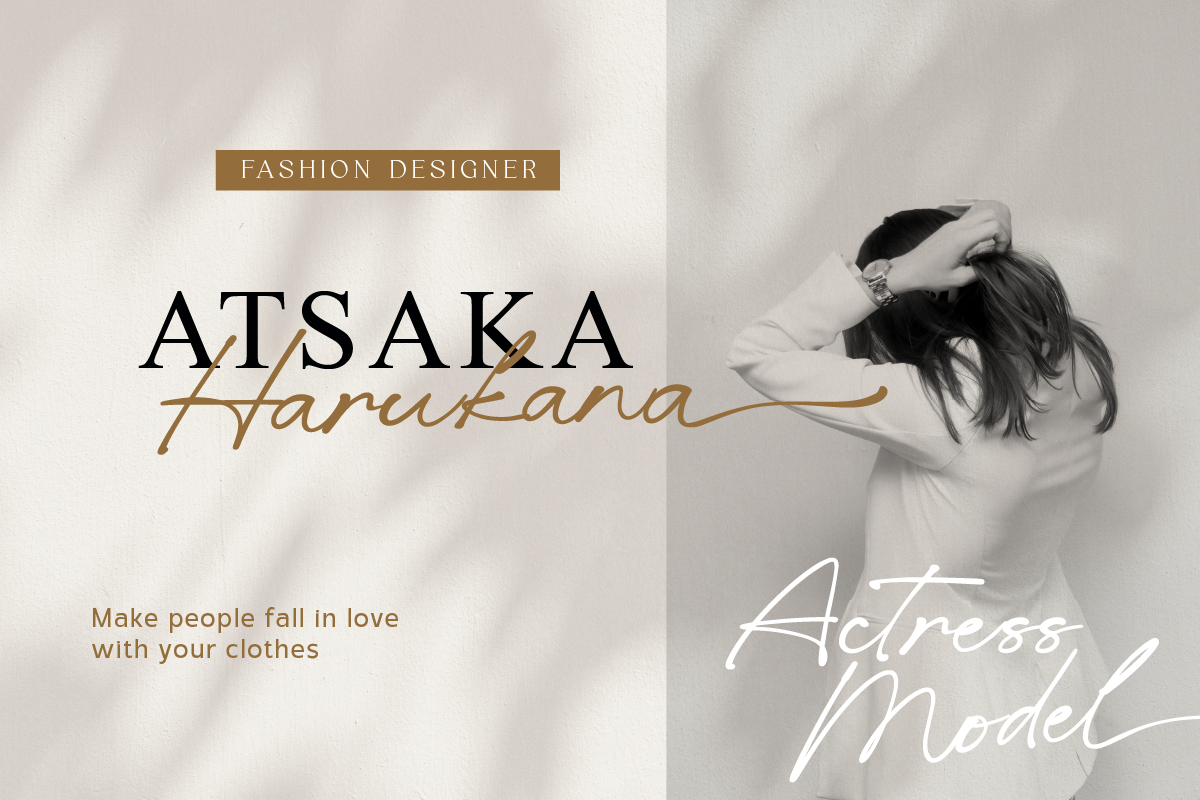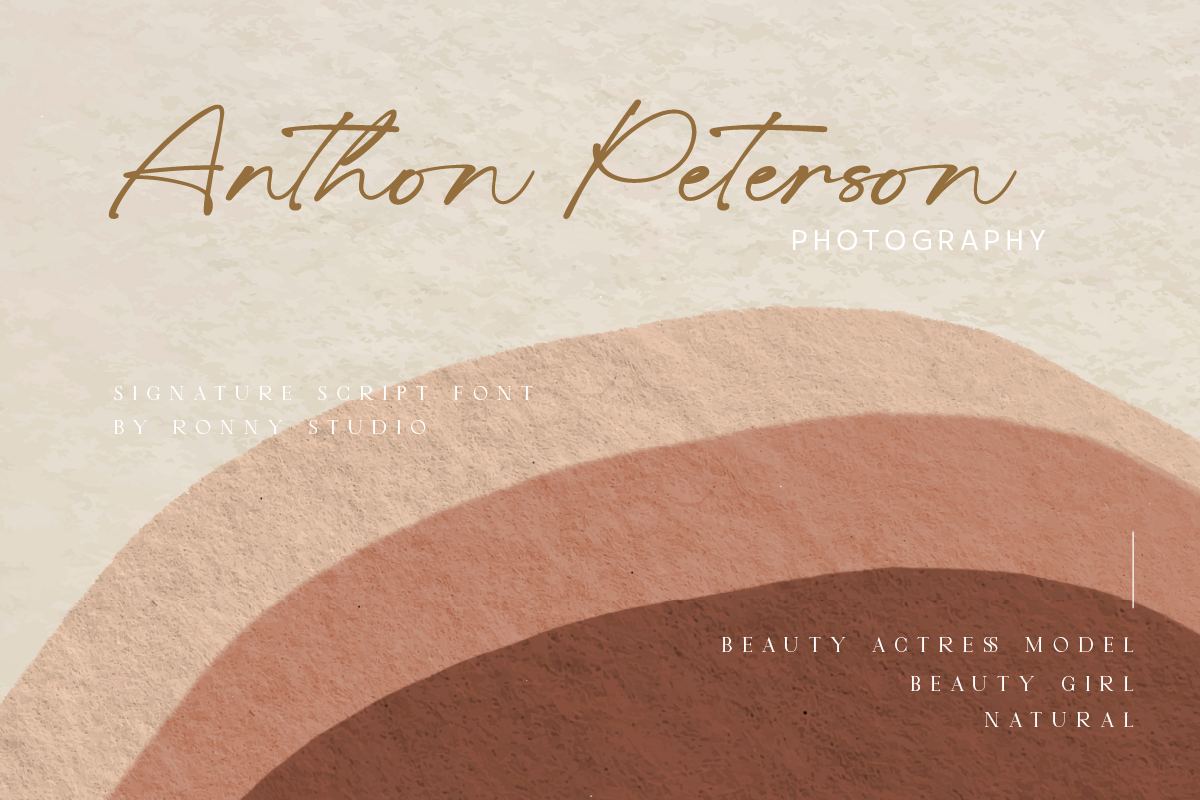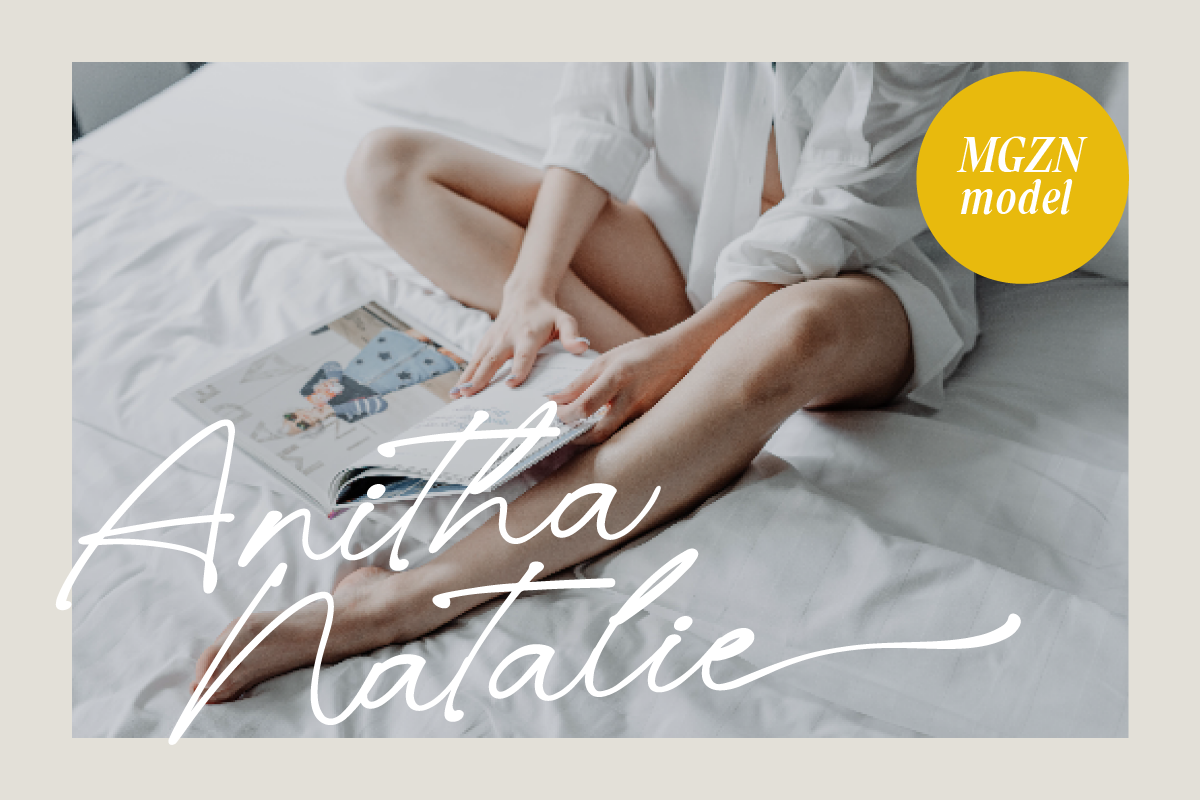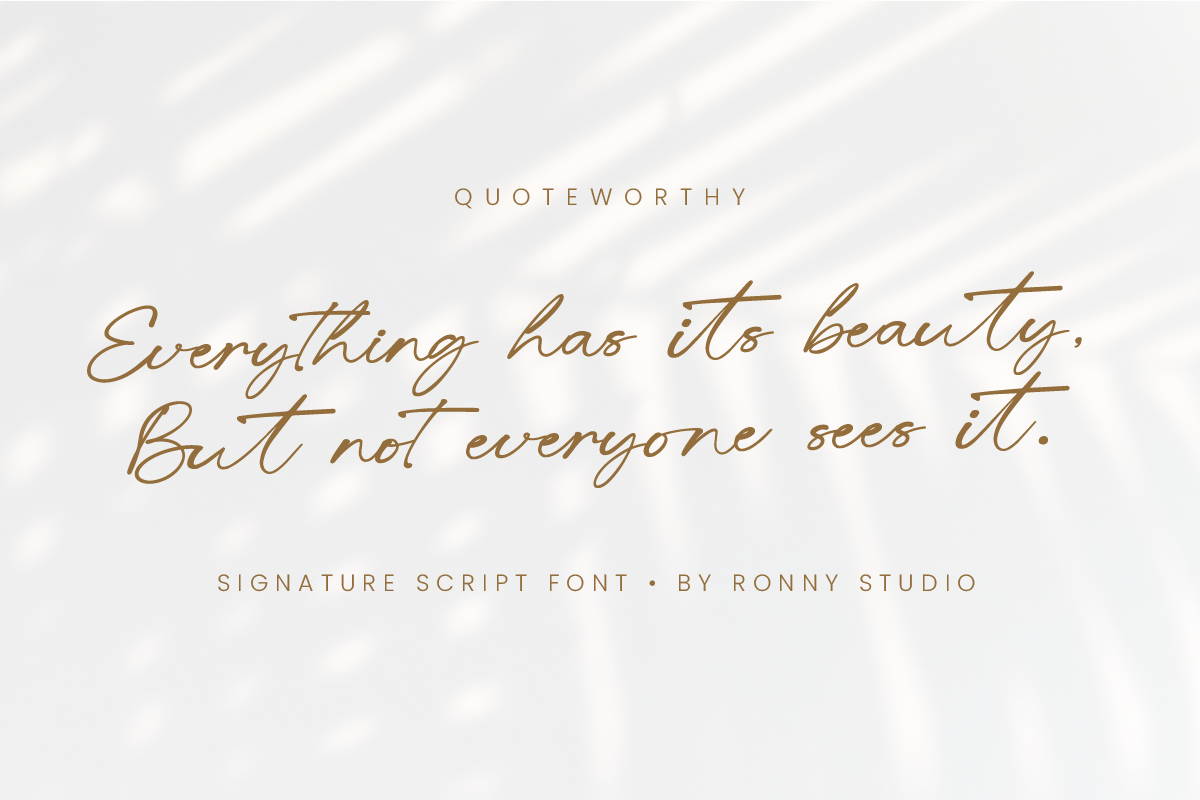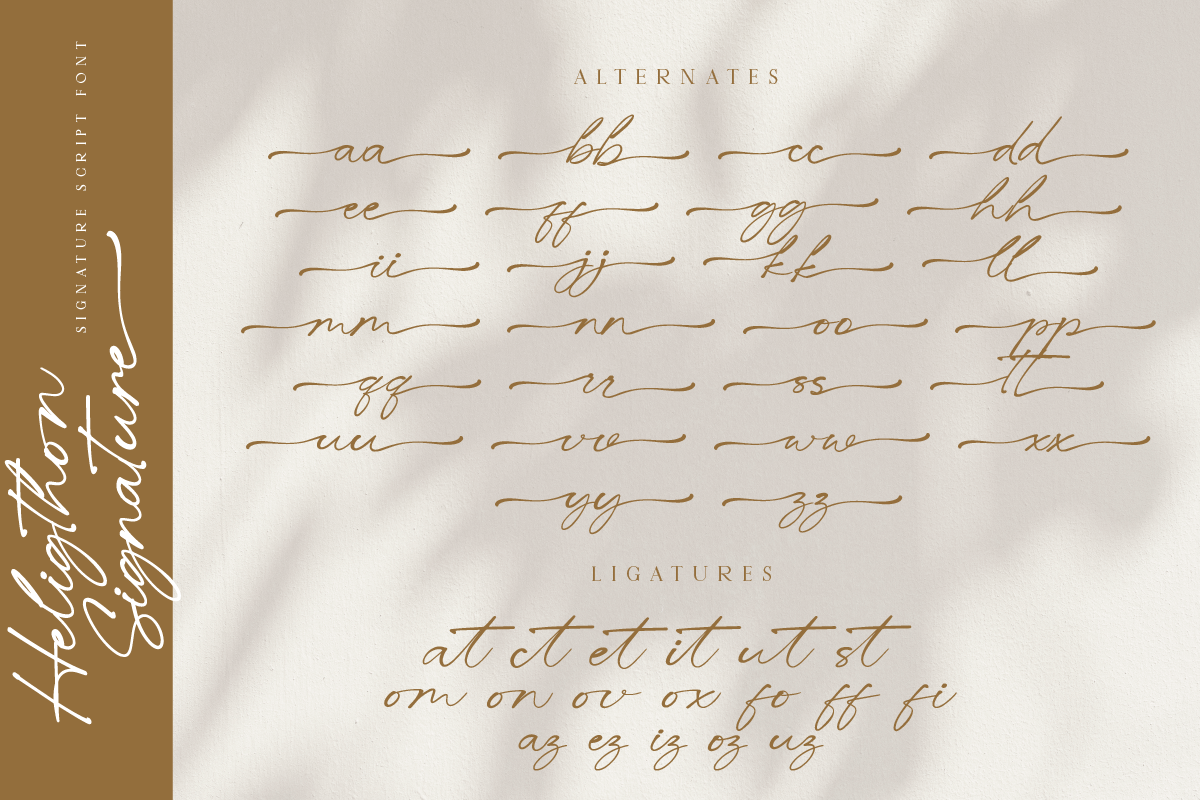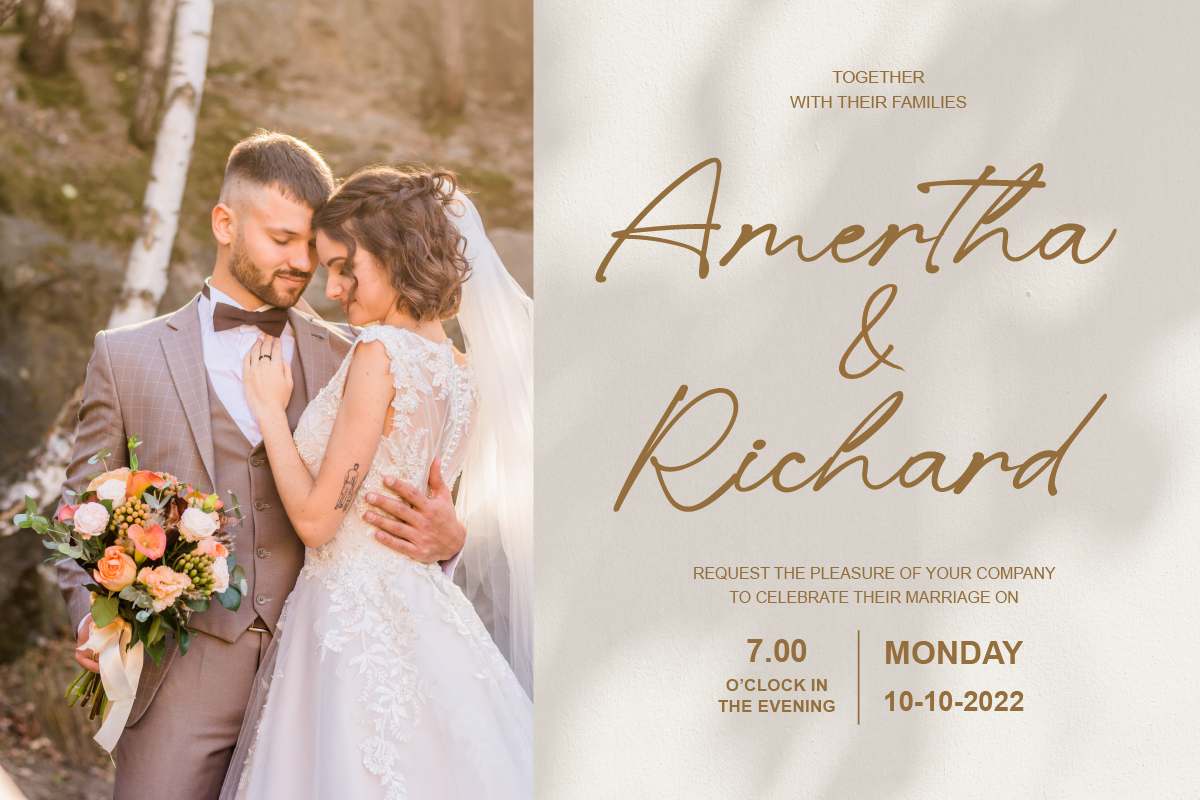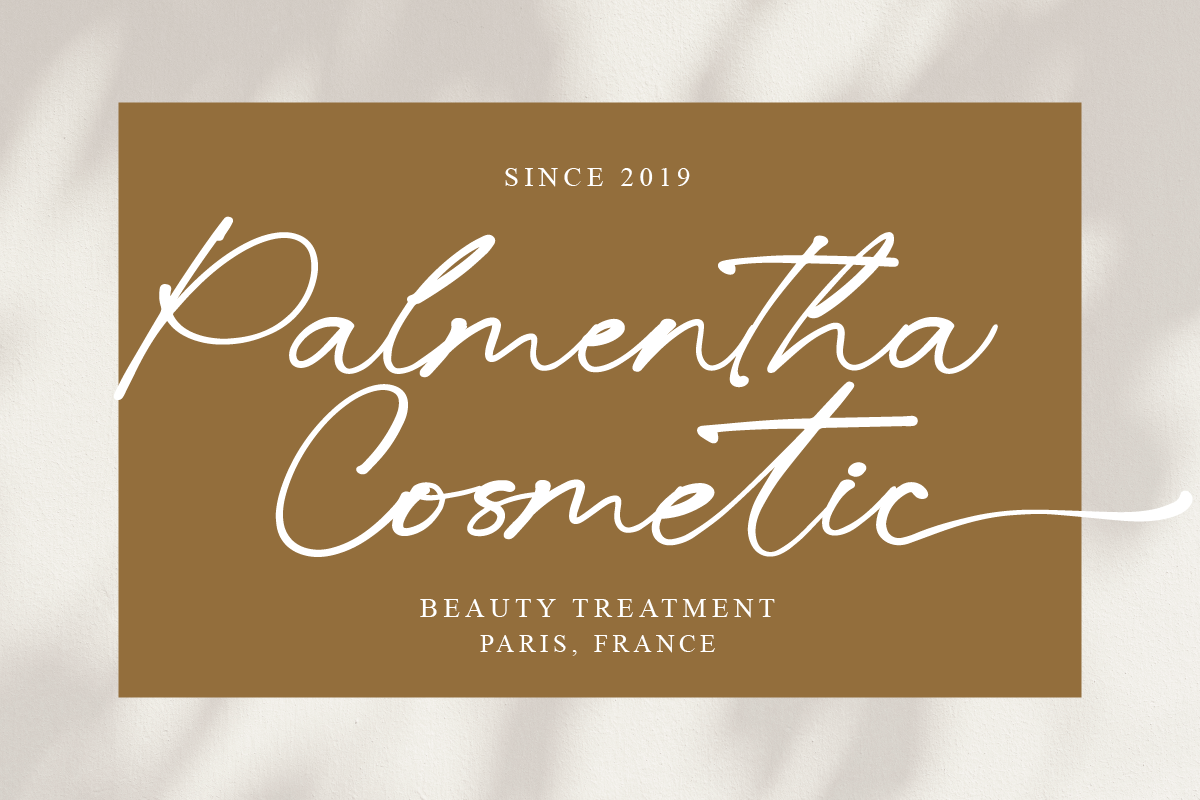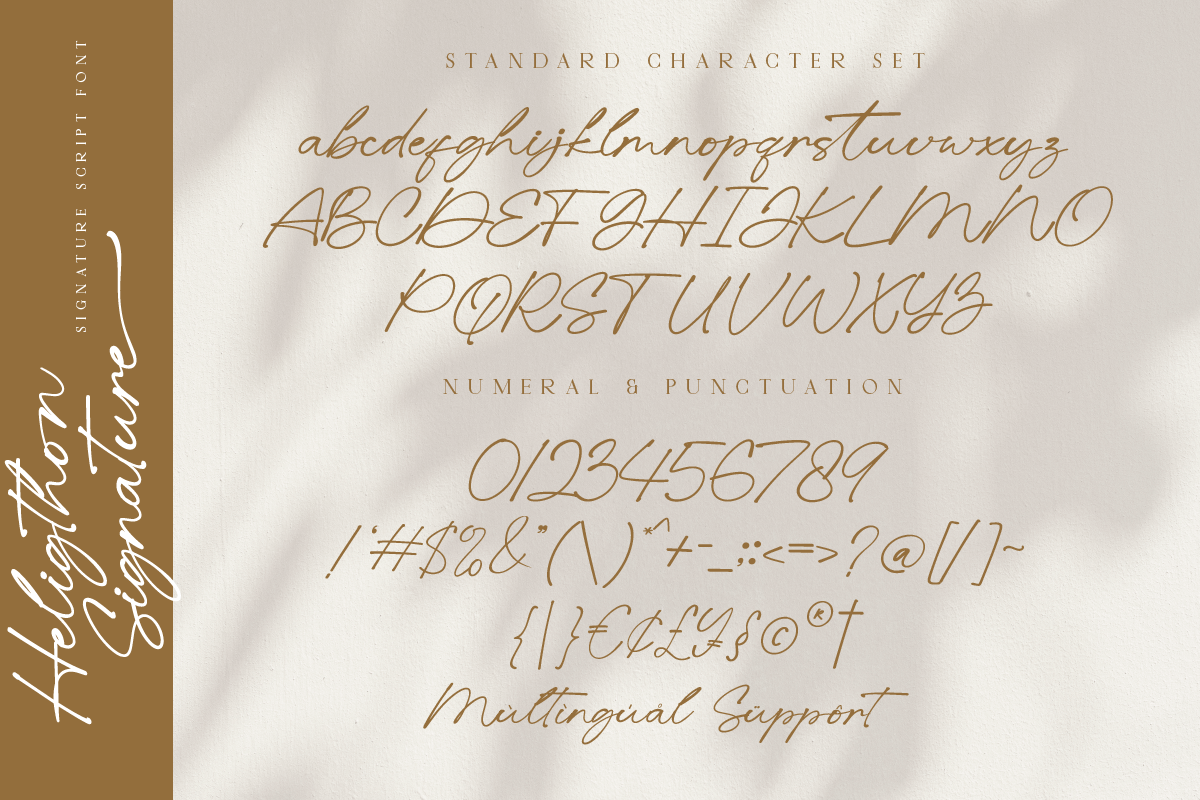
Heligthon Luxury Signature Script
Heligthon – Luxury Signature Script for Elegant Branding and Stylish Designs
Introducing Heligthon, a luxurious signature script font that embodies elegance, sophistication, and style. Designed to mimic the natural flow of handwritten calligraphy, Heligthon is perfect for creating high-end branding, fashion logos, elegant invitations, social media content, and more.
Its smooth, flowing lines and delicate curves make it ideal for adding a touch of personal flair and refined elegance to your projects.
- Elegant Signature Script Style – Mimics natural handwriting with stylish, flowing curves.
- Versatile Applications – Ideal for branding, logos, packaging, wedding invitations, fashion campaigns, social media, and more.
- Complete Character Set – Includes uppercase, lowercase, numbers, punctuation, and multilingual support.
- Luxury branding and fashion logos
- Elegant packaging for perfumes, cosmetics, and high-end products
- Wedding invitations, greeting cards, and stationery
- Social media graphics, blog headers, and digital marketing
- Editorial layouts and magazine covers
- Projects that require a personal, stylish, and sophisticated touch
Enhance your typography with the luxurious flow of Heligthon and create designs that exude style and elegance.